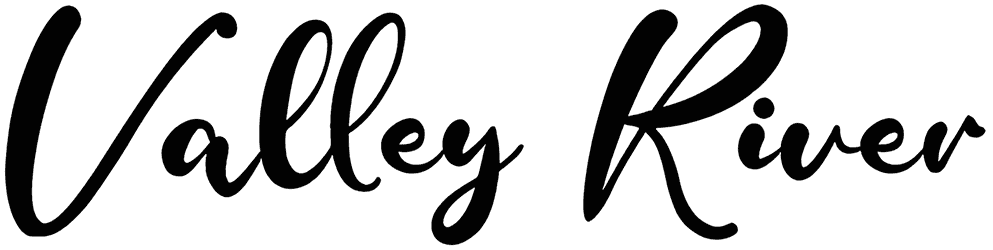
Valley River Font
If you want to appear professional, use the Valley River modern calligraphy font. The way its letters are intricately entwined with one another could lend an air of refined sophistication to the digital work you create.